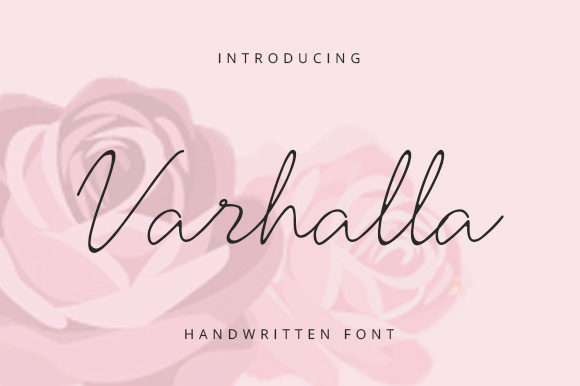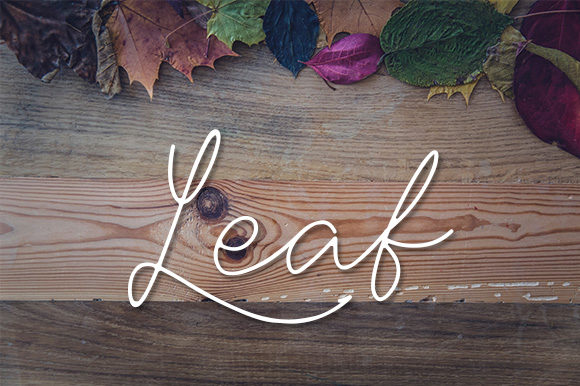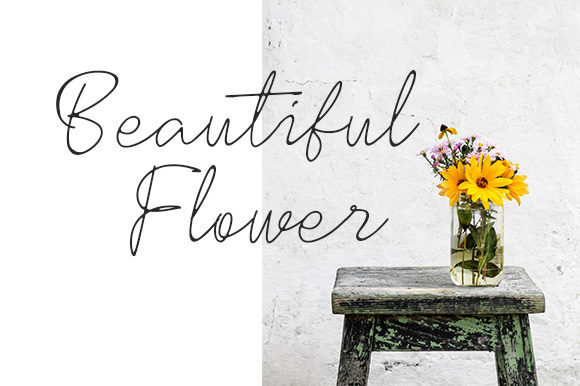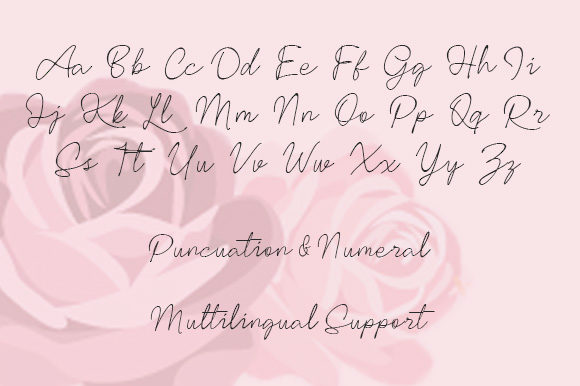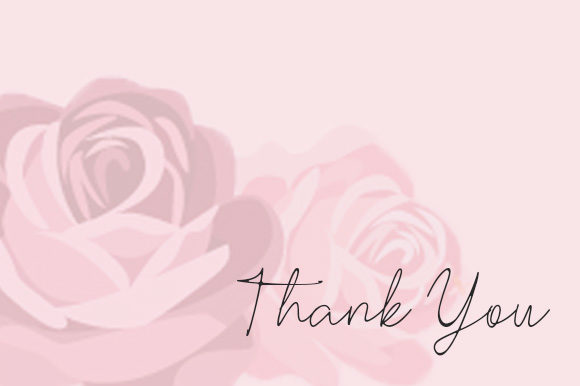
Varhalla Font
About Varhalla Font
Varhalla is a fresh and fancy script font. It’s fueled with love and carefully crafted, making it the perfect font for signatures, posters, branding, logos, fashion, typography, and much more.